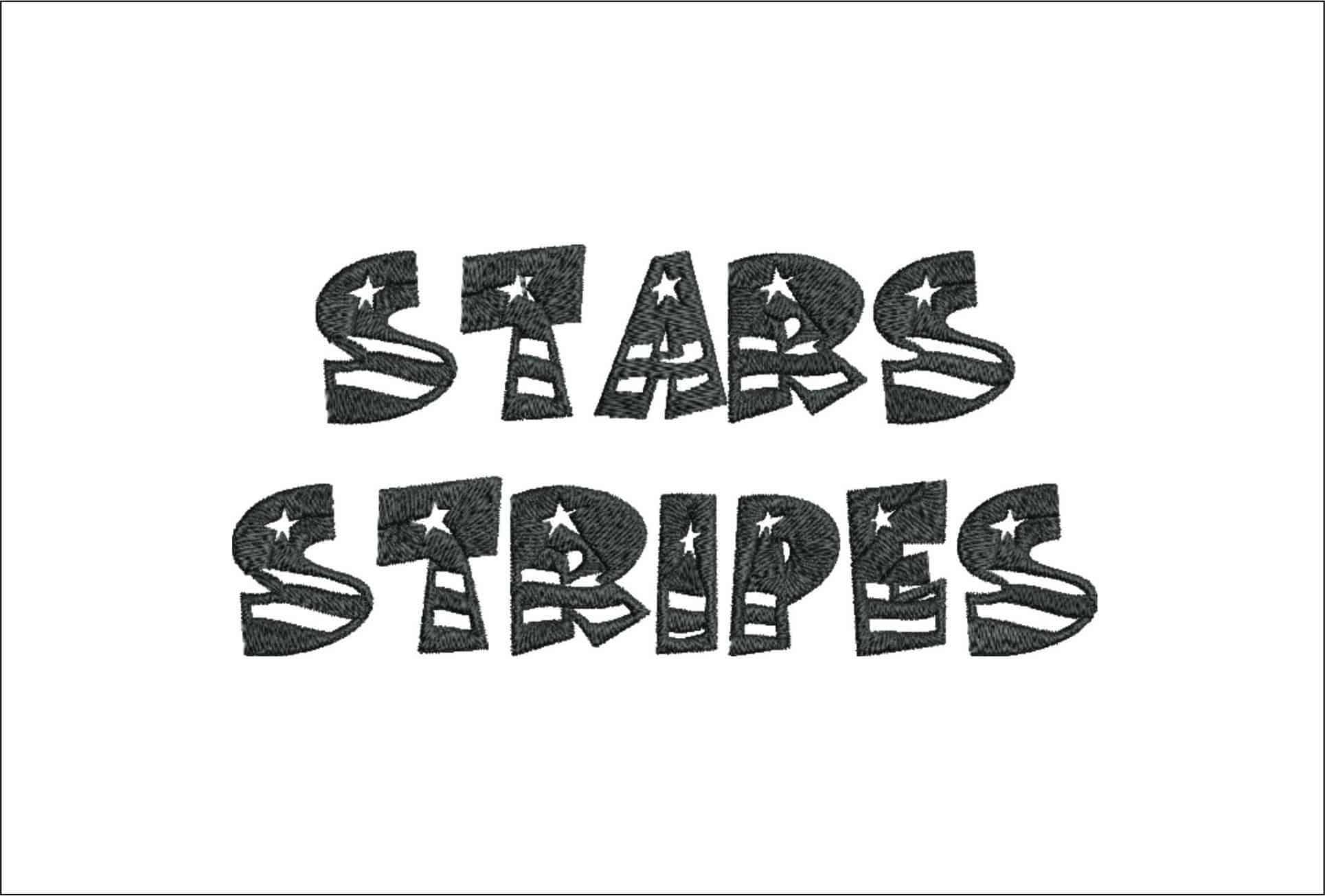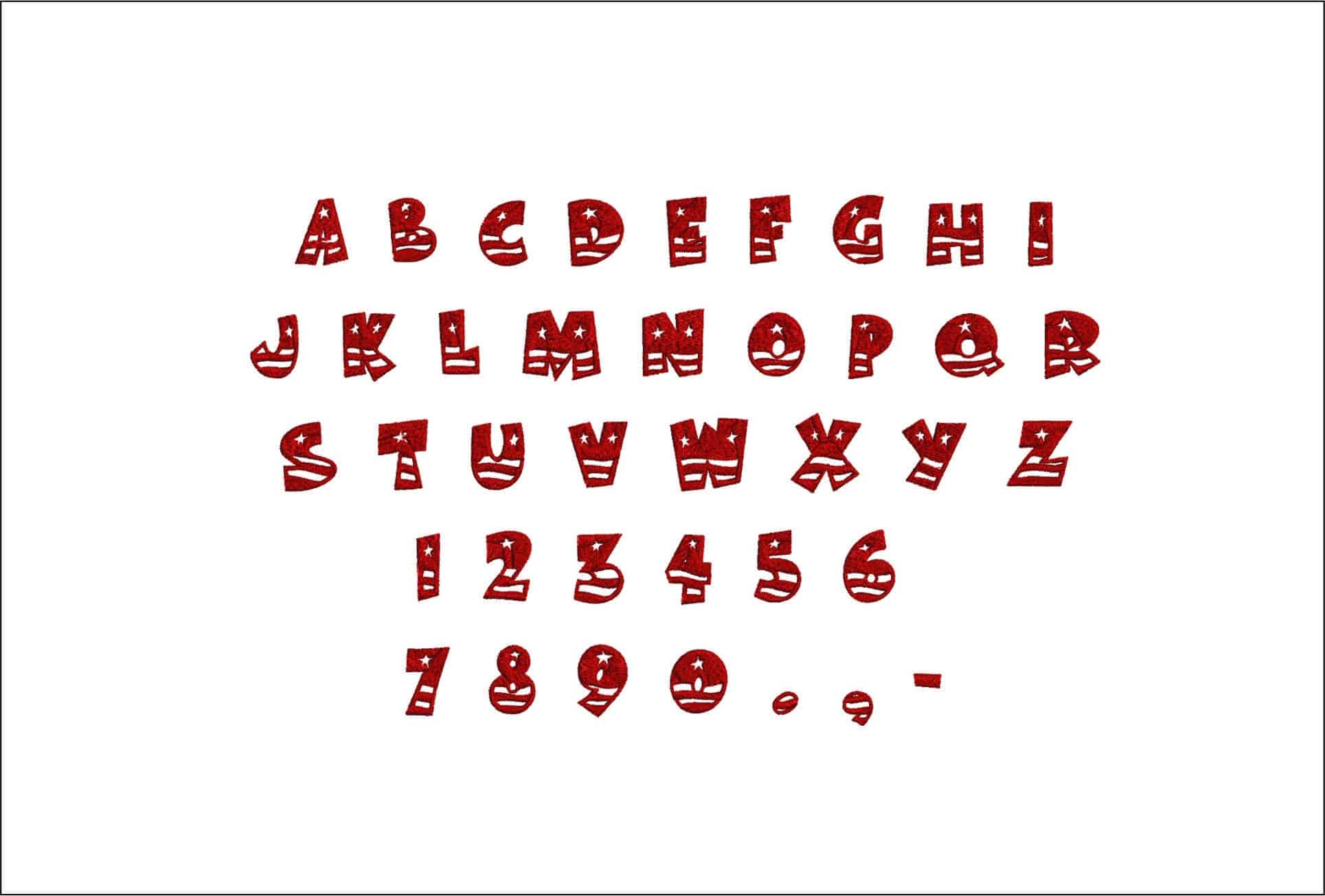
A bold patriotic alphabet with star and stripe cut-outs, made to give names, monograms and slogans a distinctly American feel.
Bring patriotic edge to names, monograms and short phrases with this Stars Stripes embroidery font set. Each letter is a solid block style with star details and stripe cut-outs, giving the alphabet a strong USA look without losing readability. The red, white and black presentation makes the motif easy to picture on Fourth of July clothing, parade wear and team-style accessories, and it suits anyone who wants custom text to feel more decorative than a plain satin font.
It works especially well on sweatshirt fronts, denim jackets, tote bags, baseball caps and picnic blankets where bold lettering shows up clearly. Because the shapes are chunky and graphic rather than fussy, the finished wording has good presence on sturdier fabrics like denim, canvas and fleece. Use it for family surnames, holiday shirts, memorial tees for veterans, or simple flag-themed initials that need to stand out at a glance.